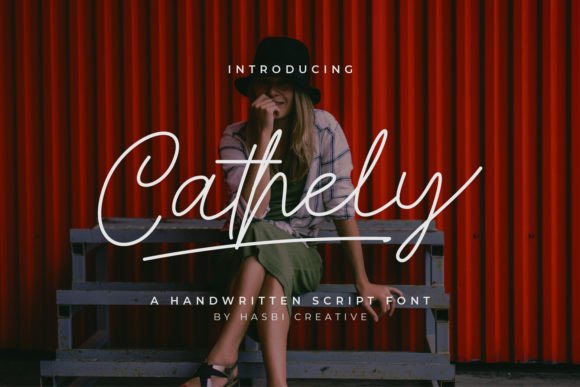
Introducing Cathely Script Handwritten: Elevate Your Designs with Elegance and Charm
Are you looking for a font that can add a touch of sophistication and personalization to your digital creations? Look no further than Cathely Script Handwritten, a captivating font that brings the charm and elegance of handwritten calligraphy to your designs. With its flowing strokes, graceful curves, and authentic handwritten style, Cathely Script Handwritten is the perfect choice for anyone looking to elevate their designs and make them stand out.
What is Cathely Script Handwritten?
Cathely Script Handwritten is a versatile font that is designed to bring a touch of elegance and sophistication to any project. Its flowing strokes and graceful curves give it an authentic handwritten style that is sure to capture the attention of your audience. Whether you’re looking to create wedding invitations, logos, marketing materials, social media graphics, or product packaging, Cathely Script Handwritten is the perfect choice.
Key Features of Cathely Script Handwritten
- Authentic Handwritten Style: Cathely Script Handwritten has a unique and authentic handwritten style that is sure to add a touch of personalization to your designs.
- Flowing Strokes and Graceful Curves: The font’s flowing strokes and graceful curves give it an elegant and sophisticated look that is sure to impress.
- PUA Encoded: Cathely Script Handwritten is PUA encoded, which means you can access all of the amazing glyphs and ligatures with ease.
- Versatile: The font is versatile and can be used for a variety of purposes, including wedding invitations, logos, marketing materials, social media graphics, and product packaging.
Uses of Cathely Script Handwritten
Cathely Script Handwritten is a versatile font that can be used for a variety of purposes, including:
- Wedding Invitations and Stationery: Add a touch of elegance and sophistication to your wedding invitations and stationery with Cathely Script Handwritten.
- Logos and Branding: Use Cathely Script Handwritten to create unique and memorable logos and branding materials that will set your business apart.
- Marketing Materials: Add a touch of elegance and sophistication to your marketing materials, including brochures, flyers, and posters.
- Social Media Graphics: Use Cathely Script Handwritten to create eye-catching social media graphics that will help you stand out in a crowded online space.
- Product Packaging: Add a touch of elegance and sophistication to your product packaging with Cathely Script Handwritten.
Benefits of Using Cathely Script Handwritten
There are many benefits to using Cathely Script Handwritten, including:
- Unique and Authentic Style: Cathely Script Handwritten has a unique and authentic style that is sure to set your designs apart.
- Elegant and Sophisticated: The font’s elegant and sophisticated look is sure to add a touch of class to your designs.
- Versatile: Cathely Script Handwritten is versatile and can be used for a variety of purposes.
- Easy to Use: The font is PUA encoded, which makes it easy to access all of the amazing glyphs and ligatures.
Tips for Using Cathely Script Handwritten
Here are a few tips for using Cathely Script Handwritten:
- Use it for Headings and Titles: Cathely Script Handwritten is perfect for headings and titles, where its elegant and sophisticated look can really shine.
- Pair it with Other Fonts: Try pairing Cathely Script Handwritten with other fonts to create a unique and interesting look.
- Experiment with Different Sizes and Colors: Don’t be afraid to experiment with different sizes and colors to find the perfect look for your design.
In conclusion, Cathely Script Handwritten is a captivating font that brings the charm and elegance of handwritten calligraphy to your digital creations. With its flowing strokes, graceful curves, and authentic handwritten style, Cathely Script Handwritten is the perfect choice for anyone looking to elevate their designs and make them stand out. Its versatility, elegant and sophisticated look, and ease of use make it a great choice for a variety of purposes, including wedding invitations, logos, marketing materials, social media graphics, and product packaging.